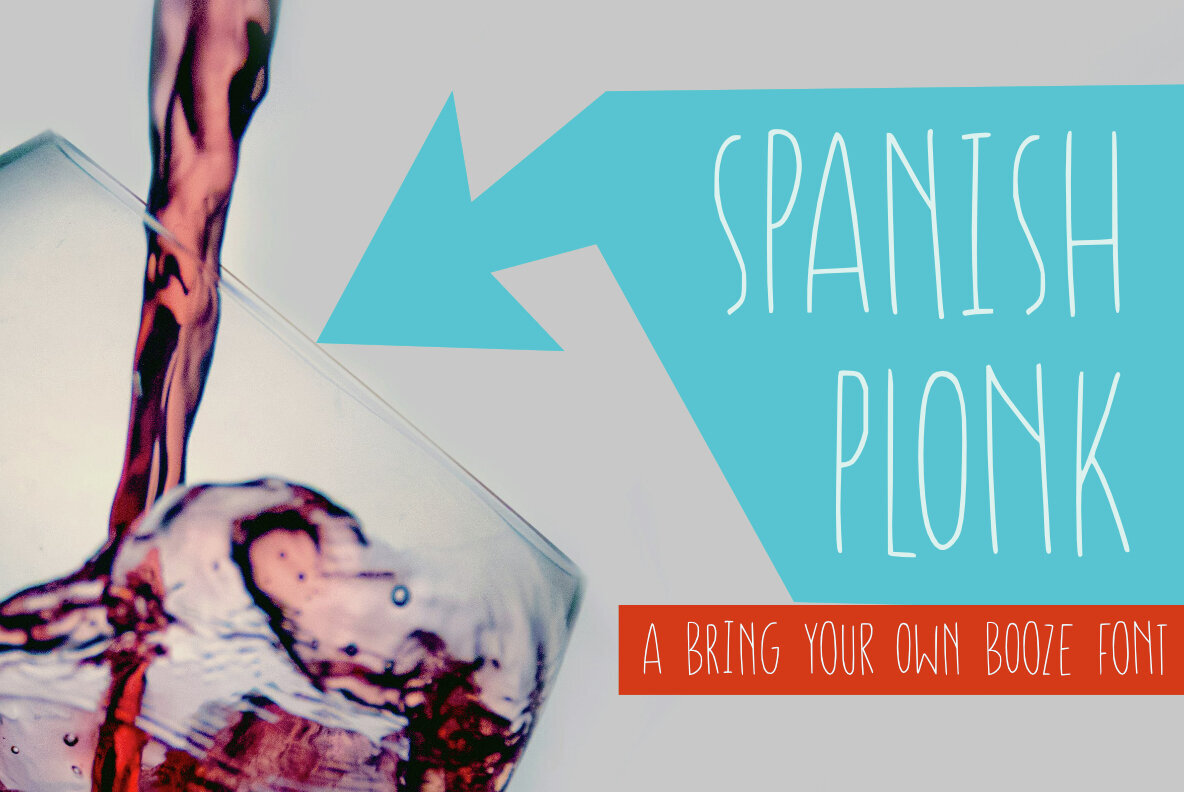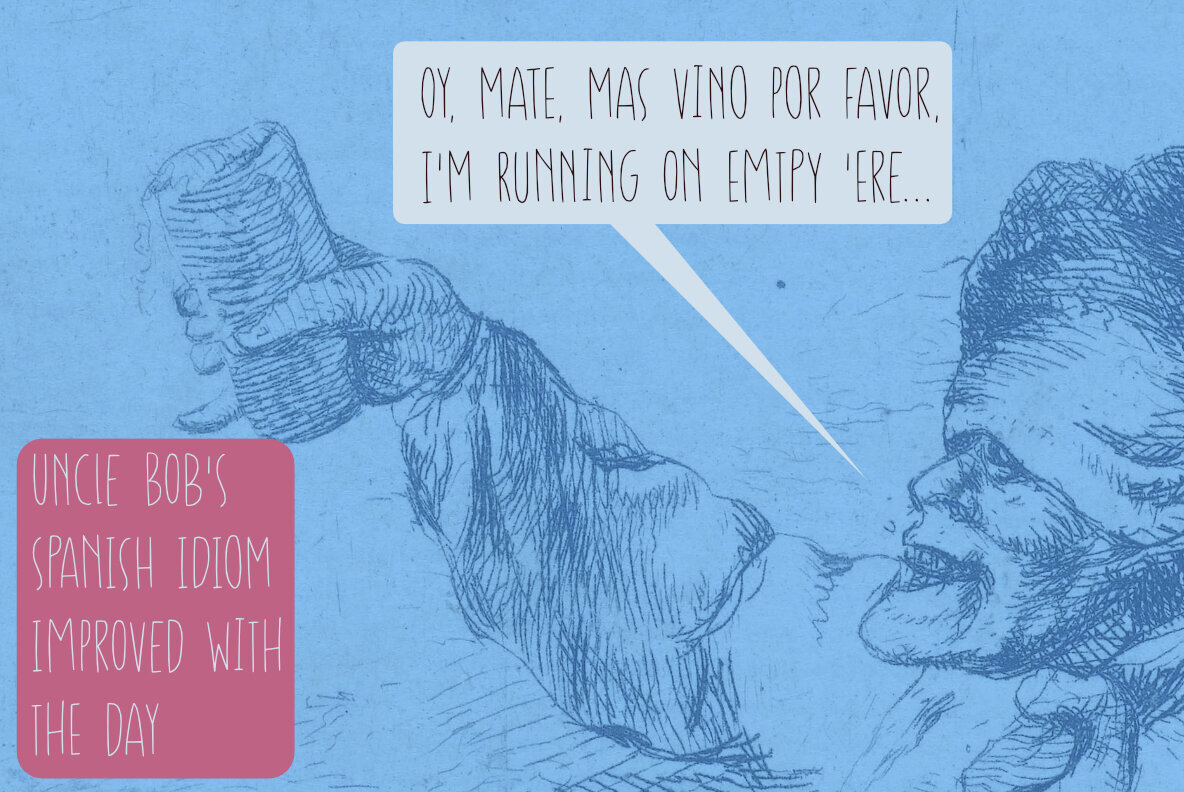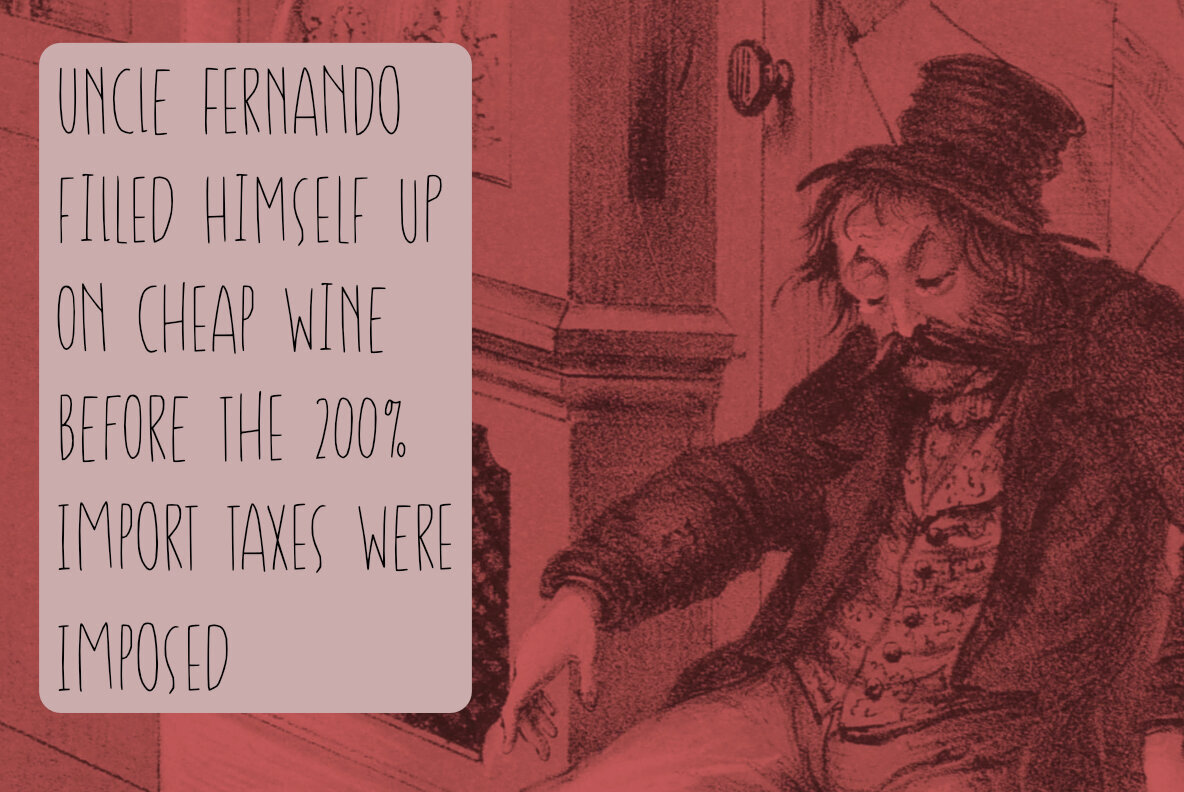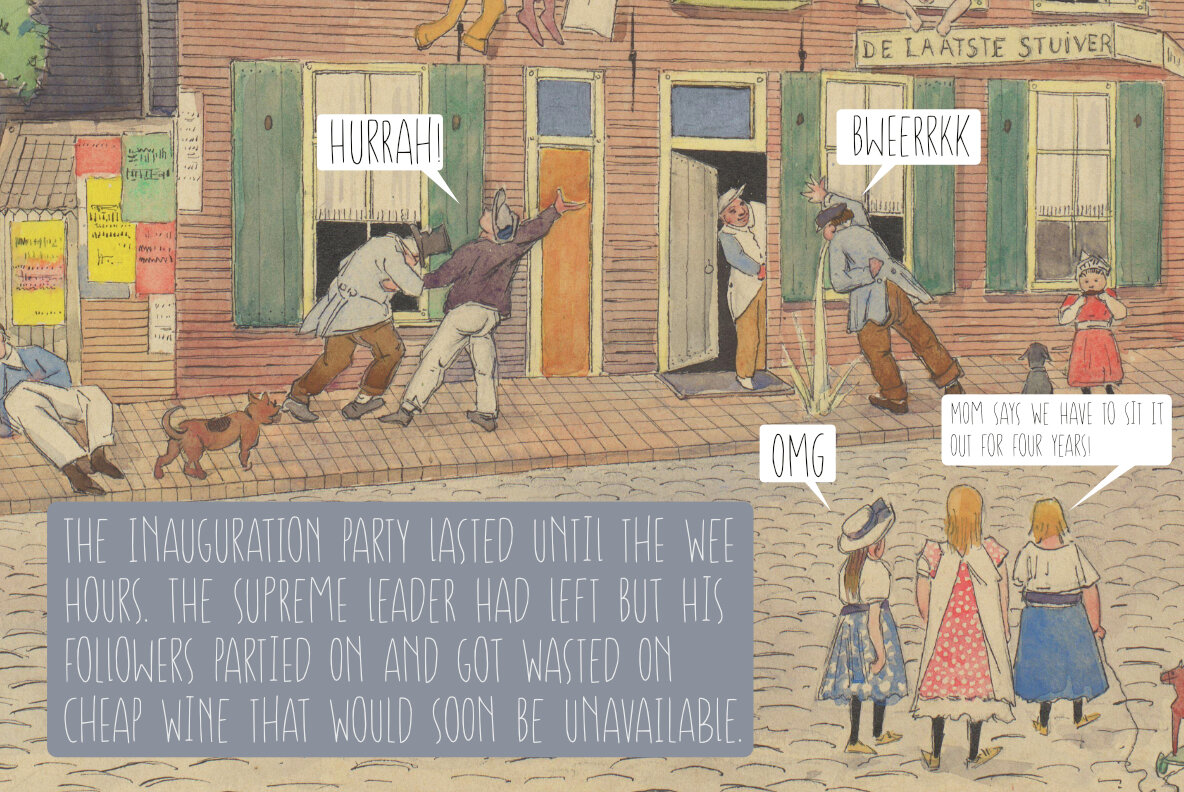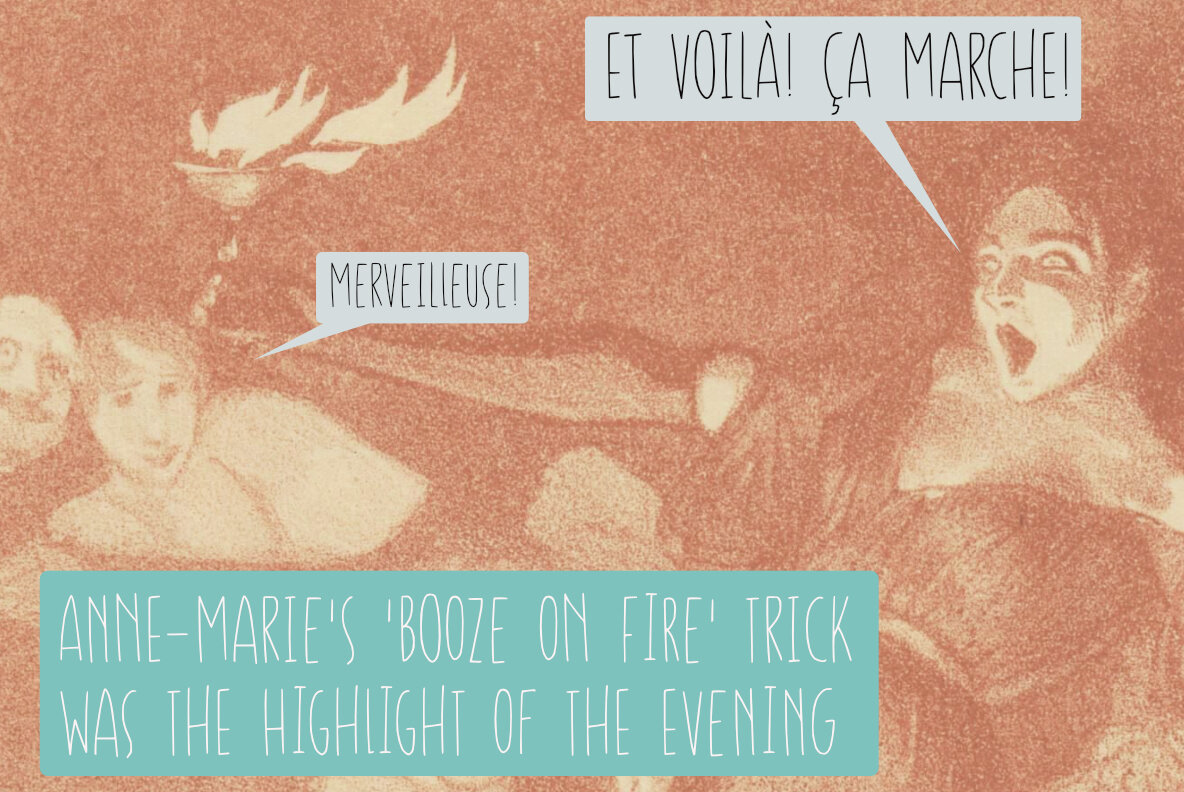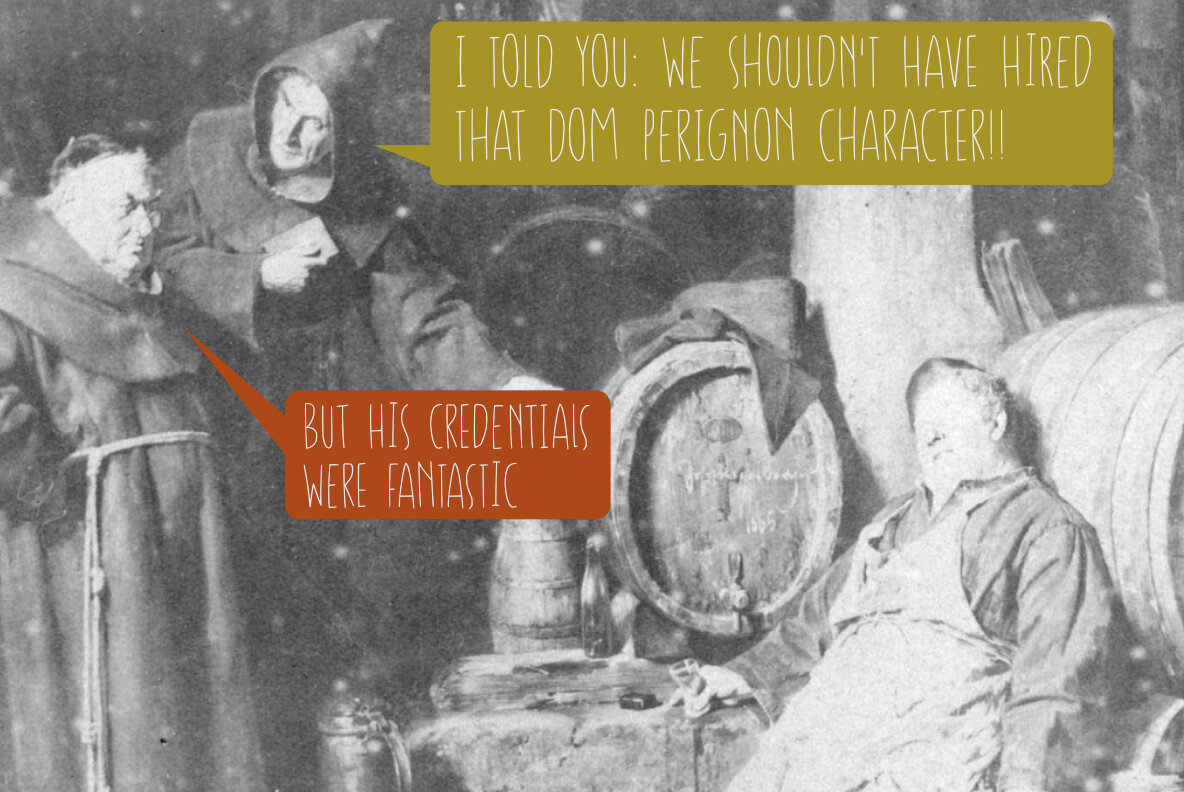
Spanish Plonk Font
Spanish Plonk: A Quirky and Versatile Typeface
Inspired by the charming and often humorous vernacular term for inexpensive wine, Spanish Plonk adds flair to your design projects with its vintage sophistication. This handmade, all-caps font exudes an air of playful nostalgia, while maintaining a tall and thin elegance that is both modern and timeless.
- Handcrafted Design: Adds a unique, personal touch to any project.
- All Caps Style: Perfect for creating bold, impactful headlines.
- Extensive Language Support: Ensures versatility for multilingual applications.
- Lowercase Alternates: Offers a beautiful set of alternate glyphs for creative variation.
Spanish Plonk effortlessly combines style with adaptability, making it a delightful choice for designers seeking to introduce character and charm into their creations.